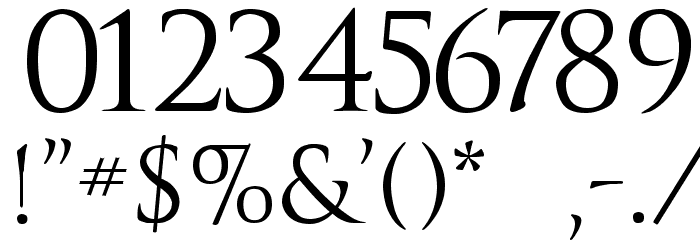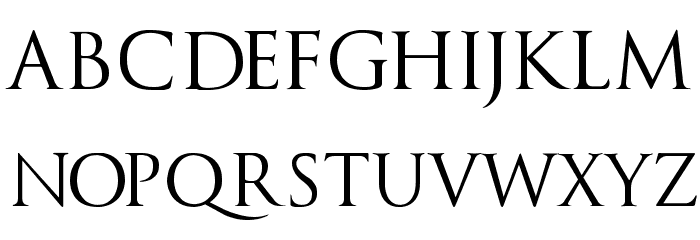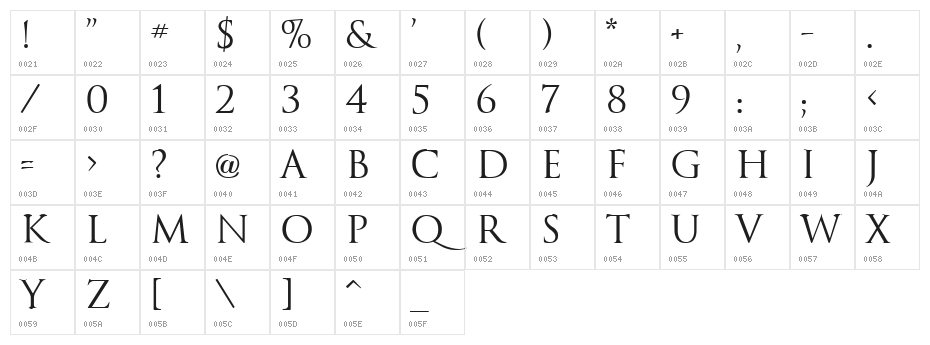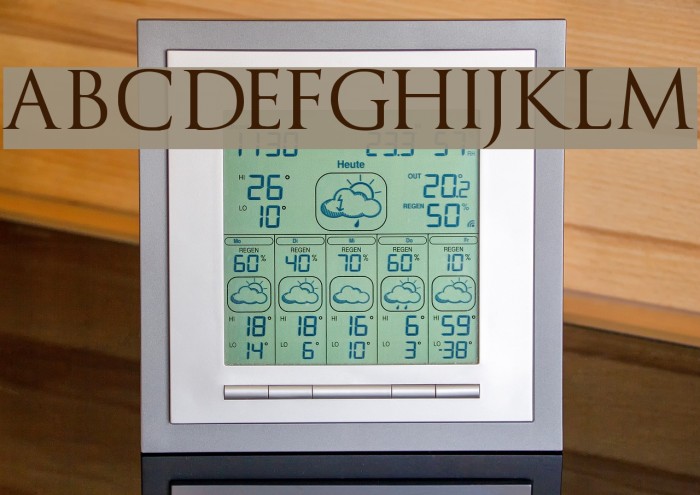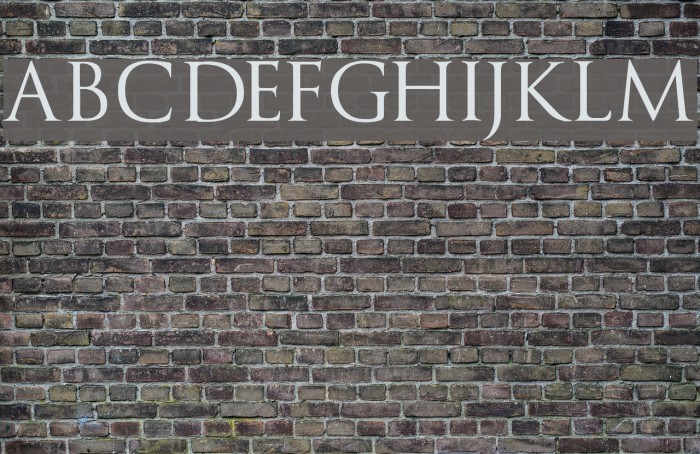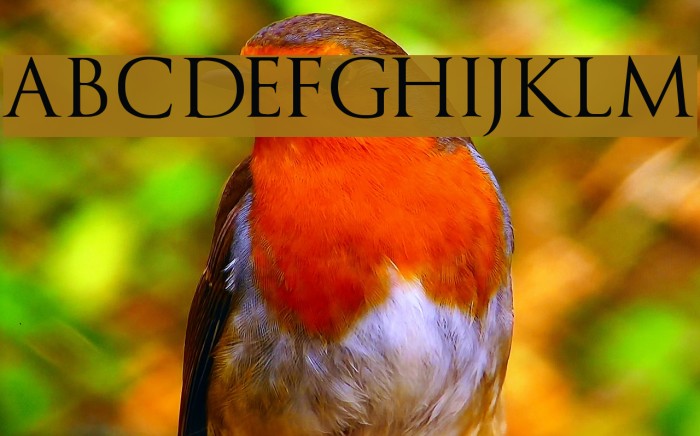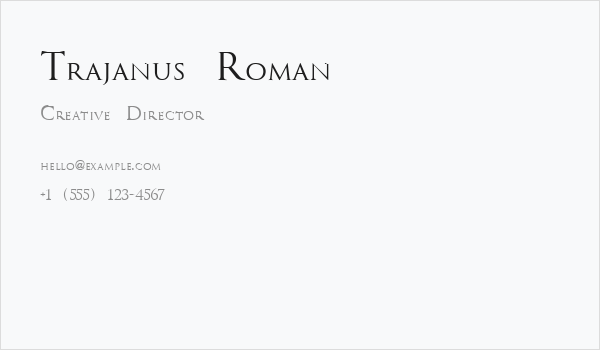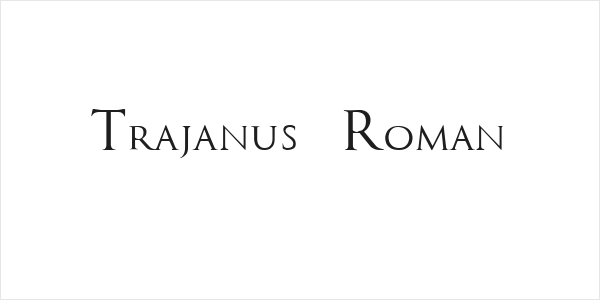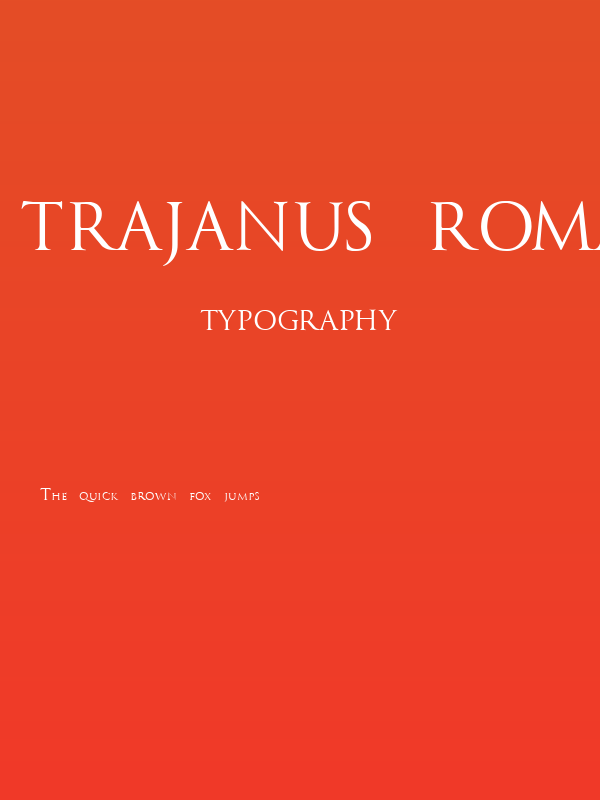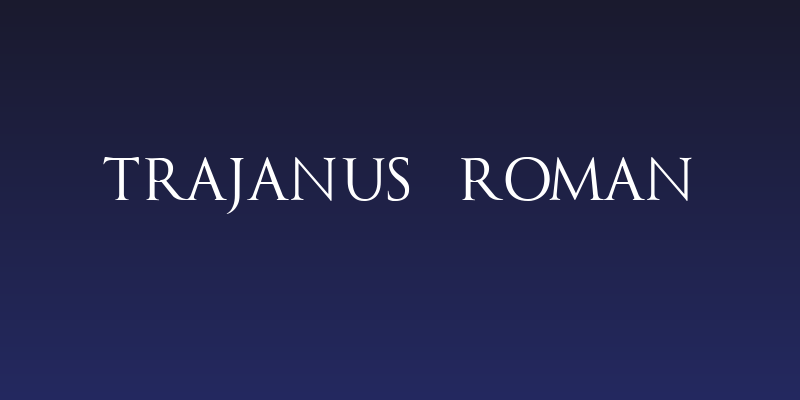
Trajanus Roman Font
Trajanus Roman Description
This font embodies a classic and elegant serif style, reminiscent of ancient Roman inscriptions. The characters are well-defined with sharp serifs and a balanced proportion, giving it a timeless and authoritative appearance. The uppercase letters are particularly striking, with a sense of grandeur and formality. The numerals are clear and consistent, maintaining the font's overall aesthetic. Special characters are thoughtfully designed, ensuring versatility in various applications. This font is ideal for projects that require a touch of sophistication and historical reference.
Overall StyleClassic
Use CaseHeadlines, Logos, Formal documents
Proposed ProjectsIdeal for book covers, formal invitations, historical documentaries, and branding that requires a classic touch.